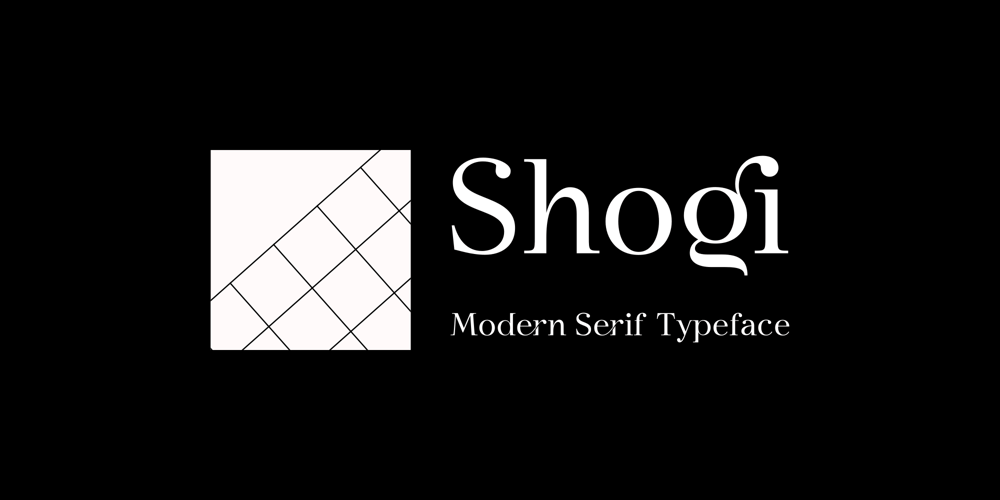
Shogi Font Family was designed by Saefulloh and published by Attractype. Shogi contains 1 styles and family package options. Attractype presents Shogi, a beautiful modern serif font, which has sharp shapes and high contrast. Suitable for easy-to-read text or attractive displays.Shogi comes with some beautiful ligatures that make your letter projects even more special.